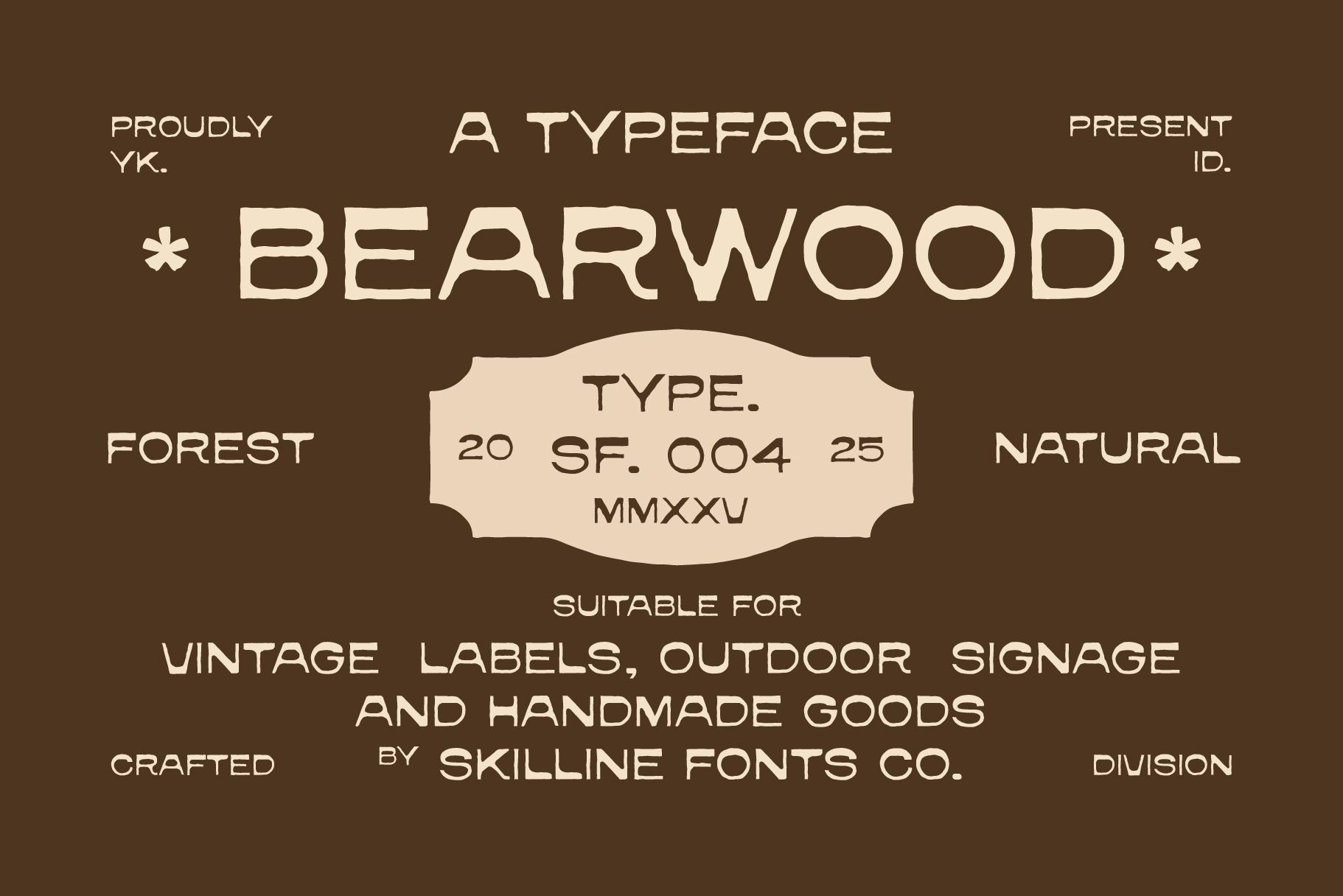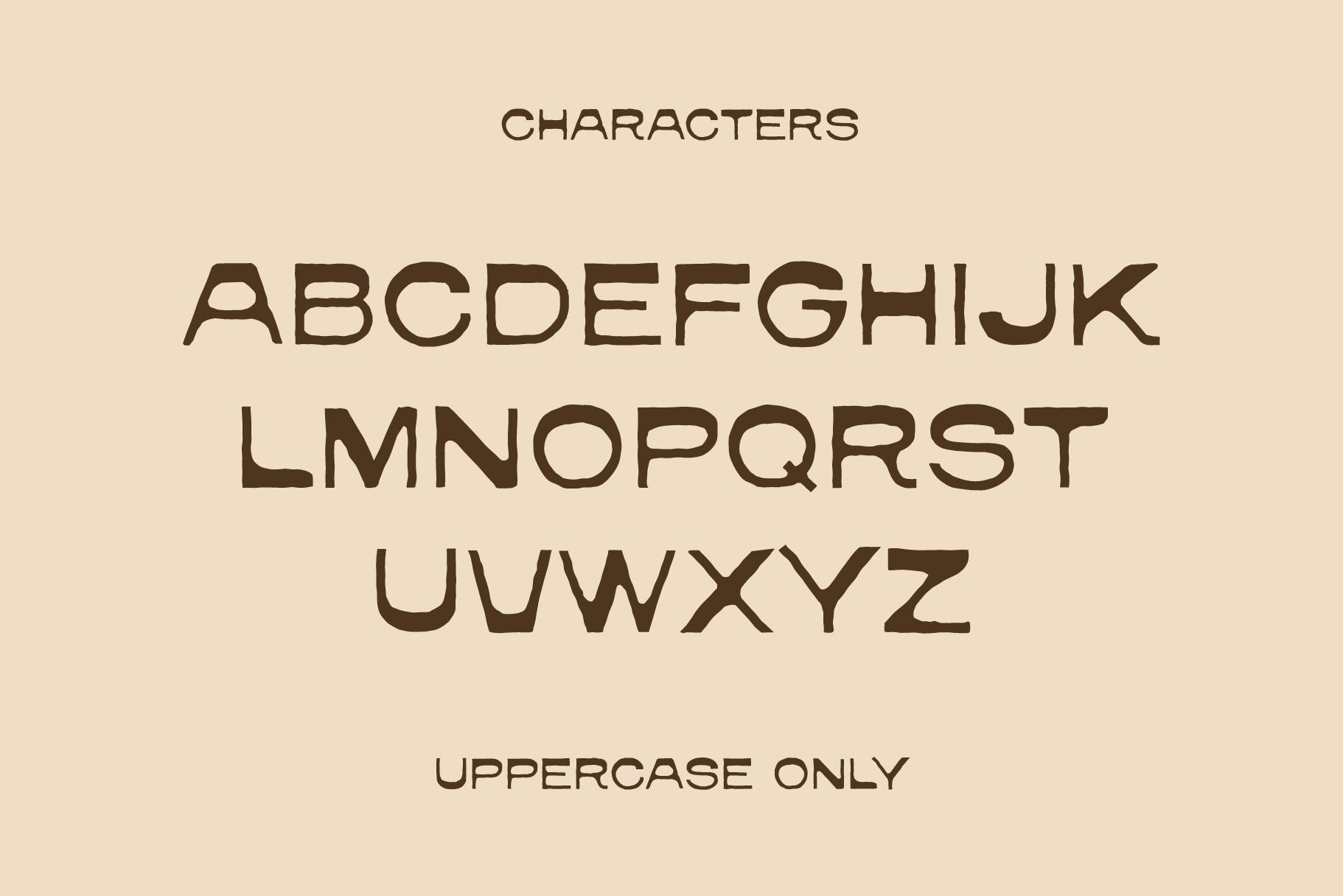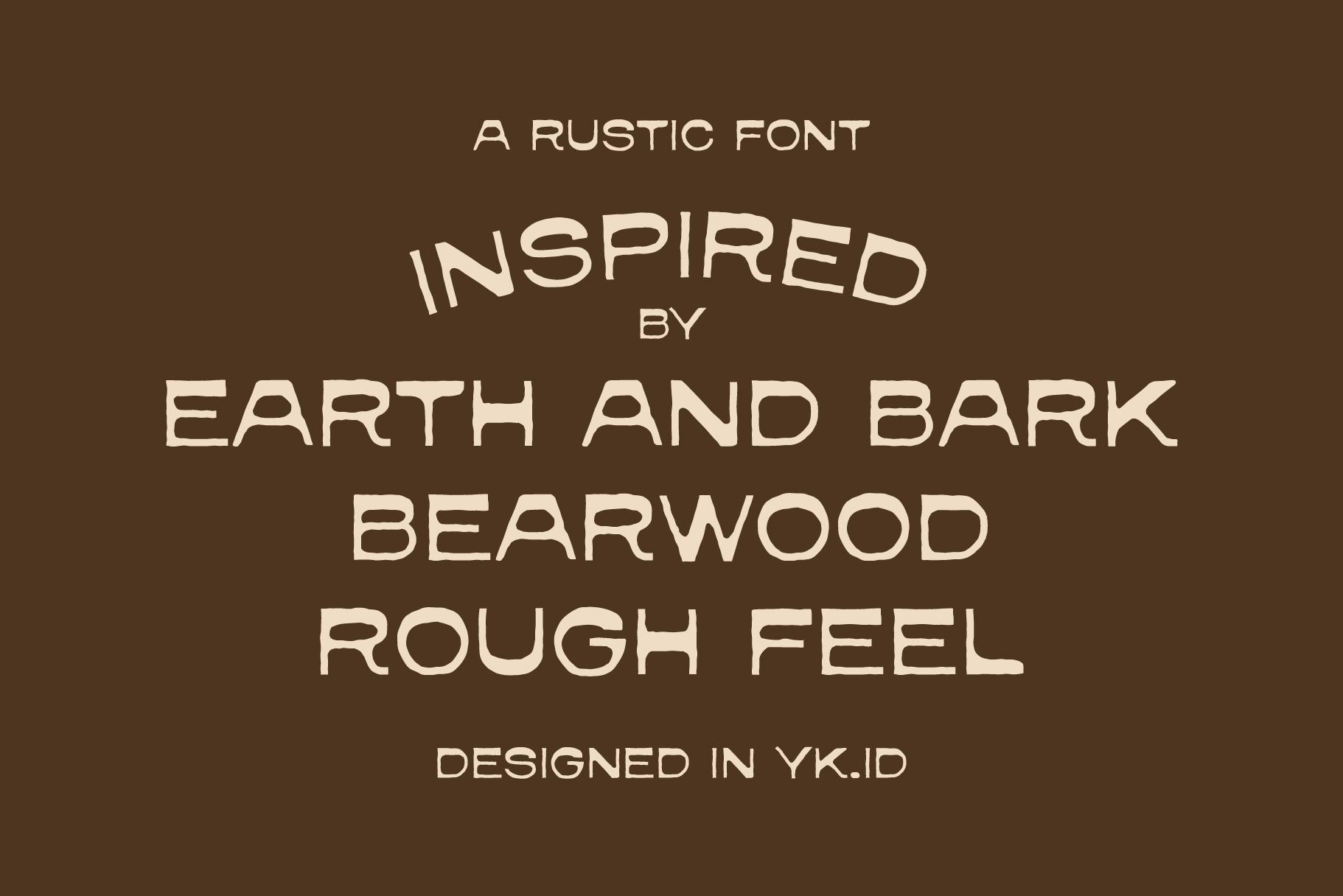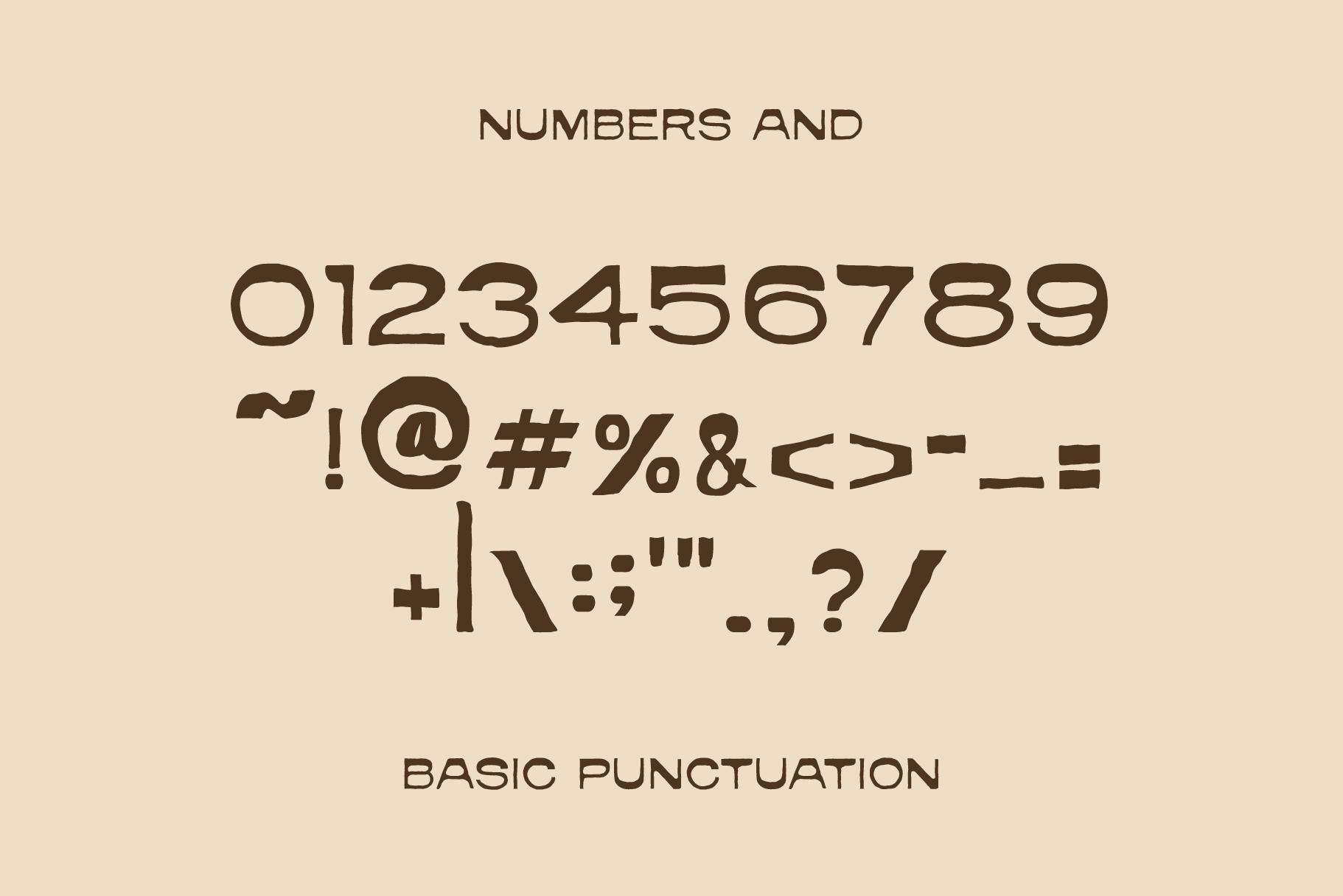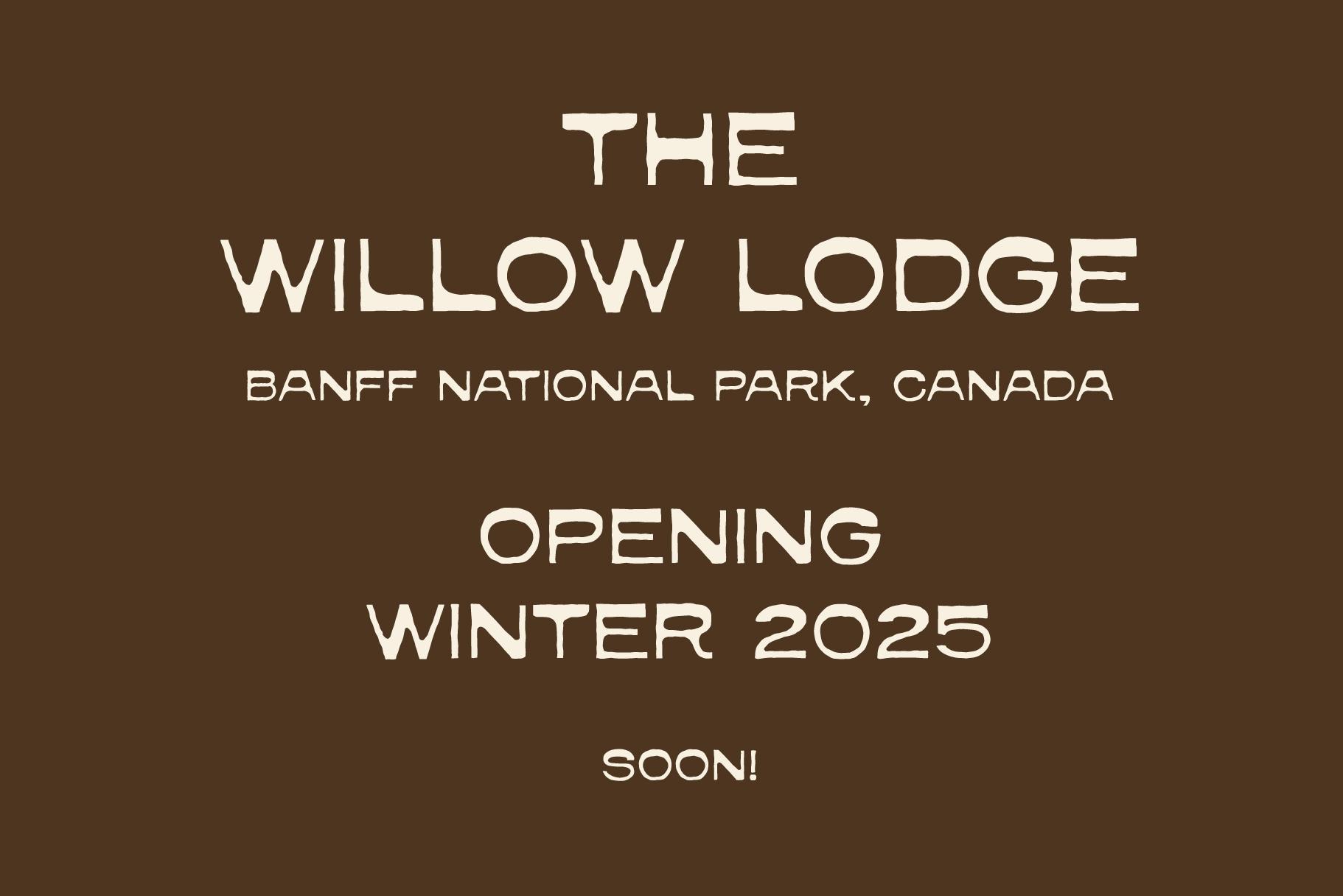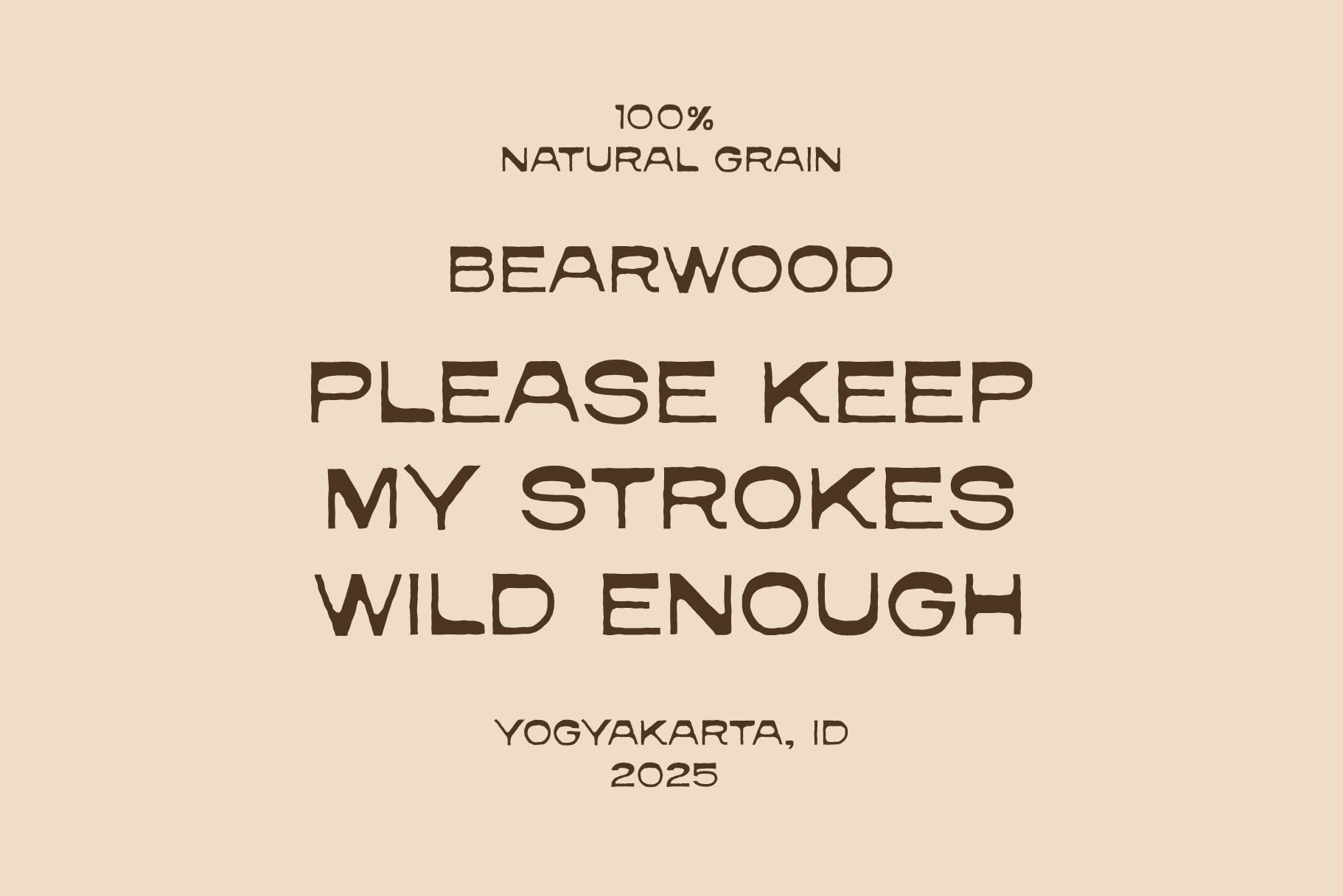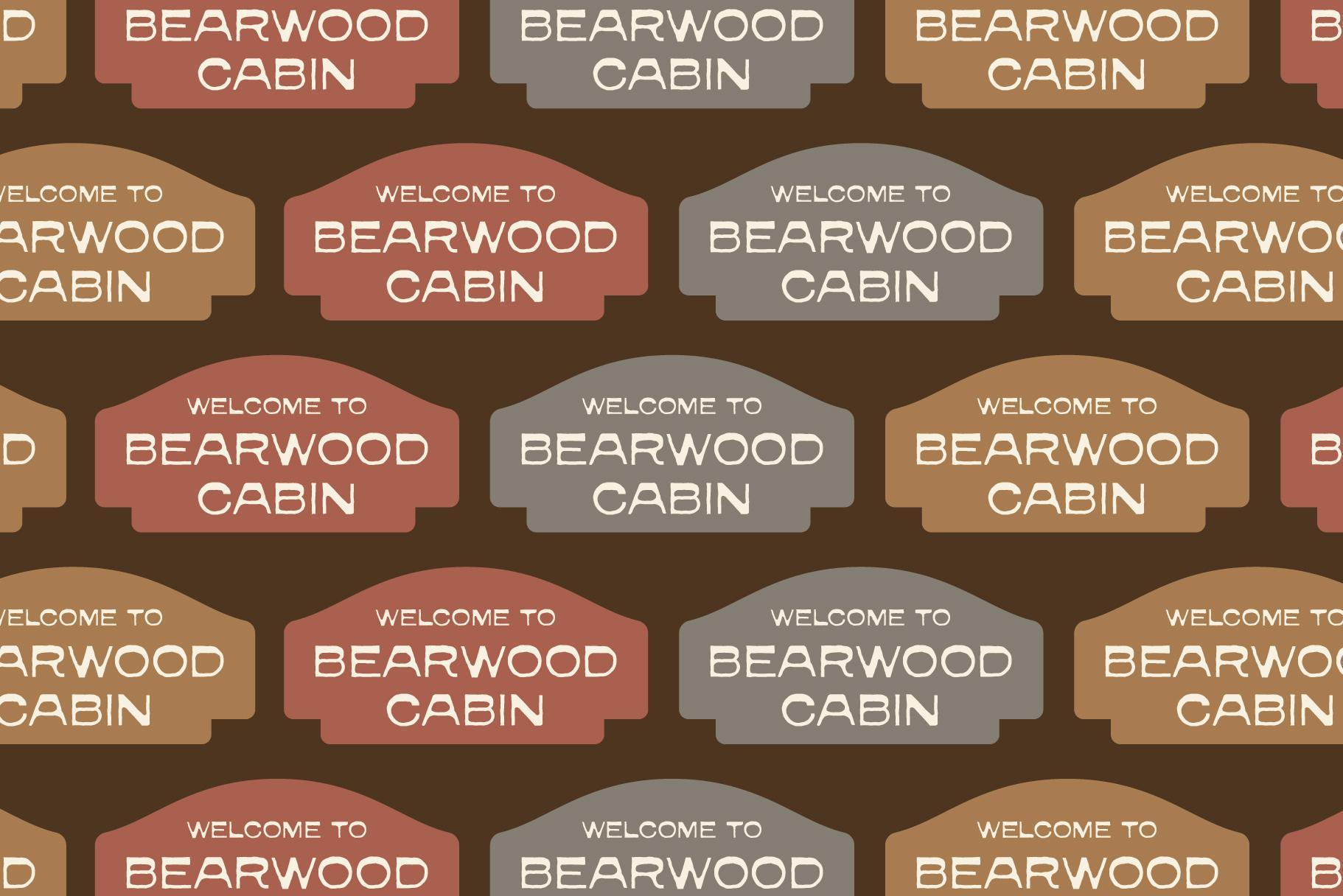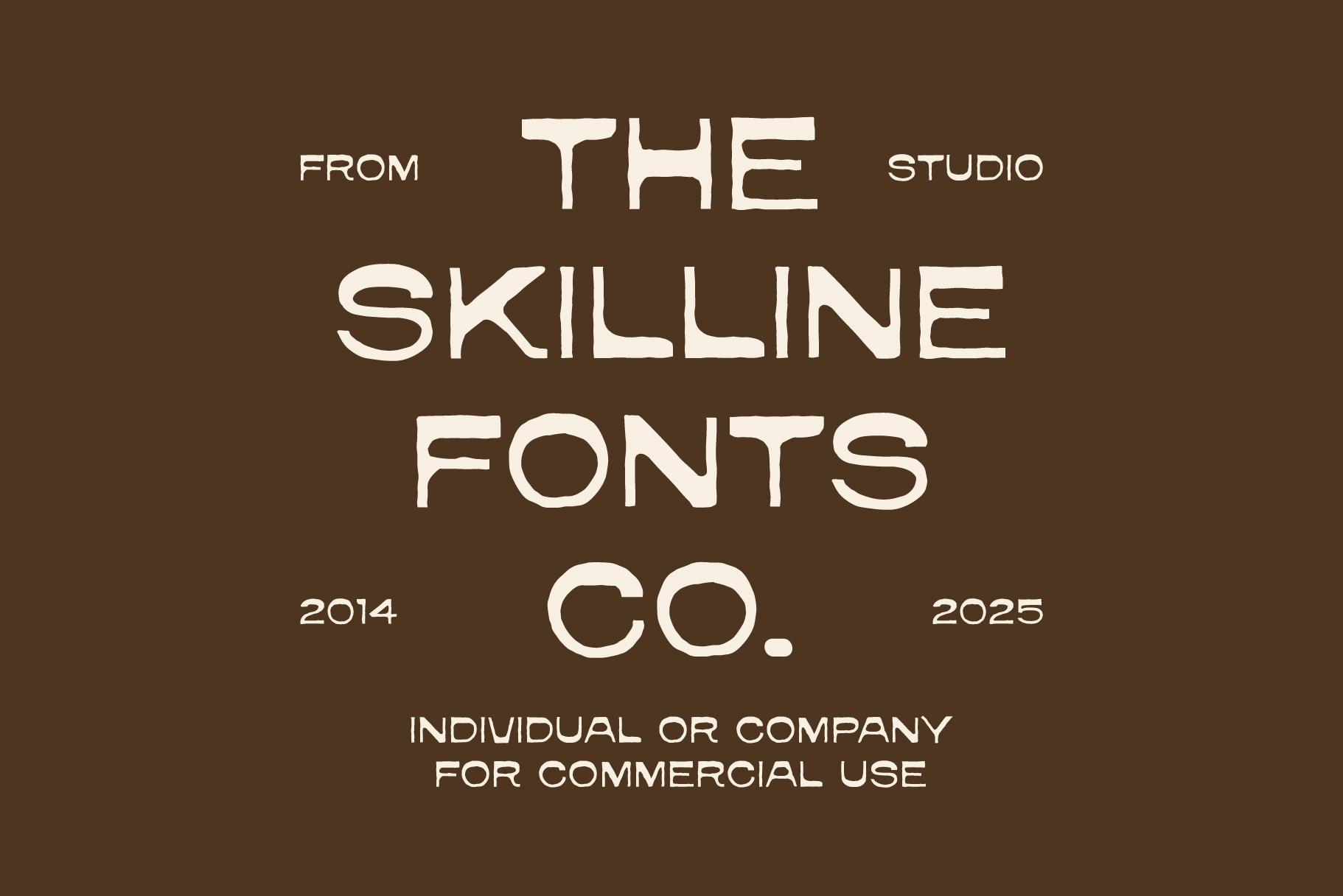
Bearwood - Forest Inspired Typeface
Bearwood is a rugged and organic display typeface that brings the spirit of the forest to your designs. With handcrafted strokes, natural edges, and a bold yet approachable feel, it captures the authenticity of vintage signage and outdoor labels. Inspired by timeless hand lettering, Bearwood offers a rustic character that stands out while remaining versatile for both modern and heritage projects.
This font is best suited for designers, makers, and brands who want to infuse their work with personality and craftsmanship. Perfect for logos, vintage labels, packaging, apparel, posters, outdoor signage, handmade products, magazines, and even digital platforms like Instagram, TikTok, and Pinterest. Bearwood adds an artisanal touch that connects with audiences across print and digital spaces.